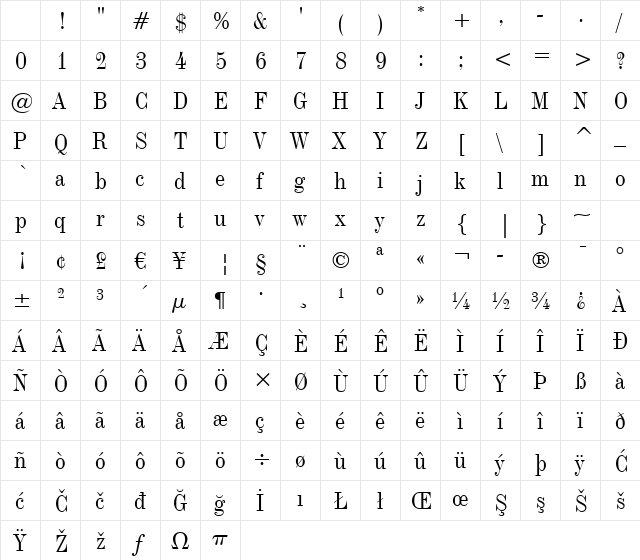
Complete Industrial736 BT Roman glyph index. Displaying only characters natively supported by Industrial736 BT Roman font.
Industrial736 BT is a composed and adaptable typeface that performs quietly and consistently across a wide range of design contexts.